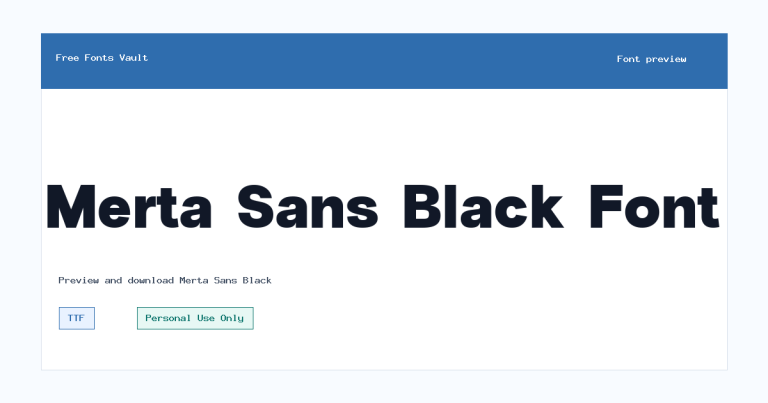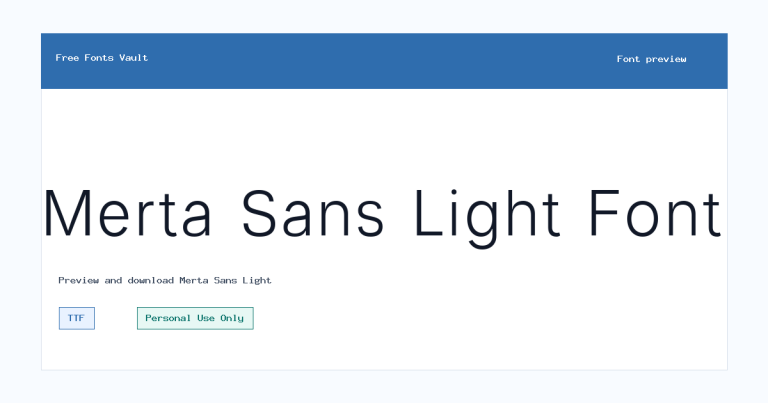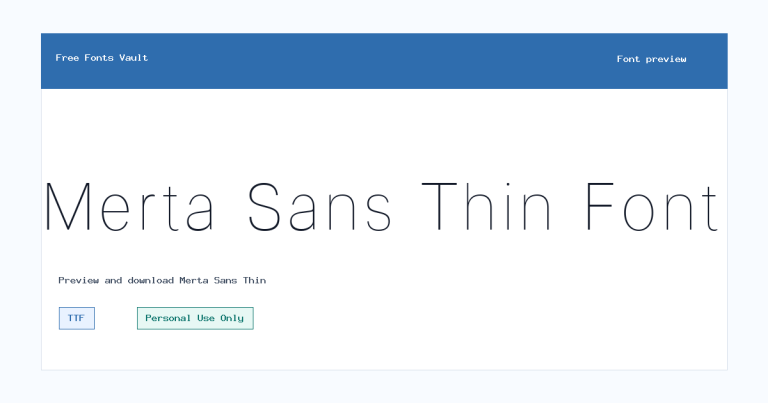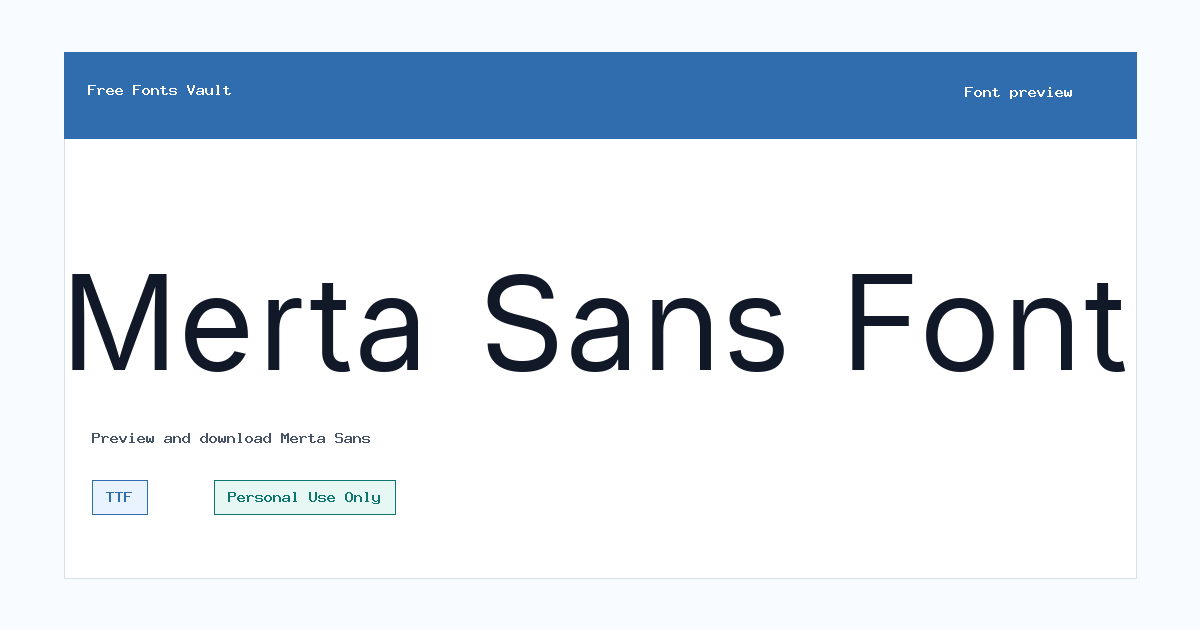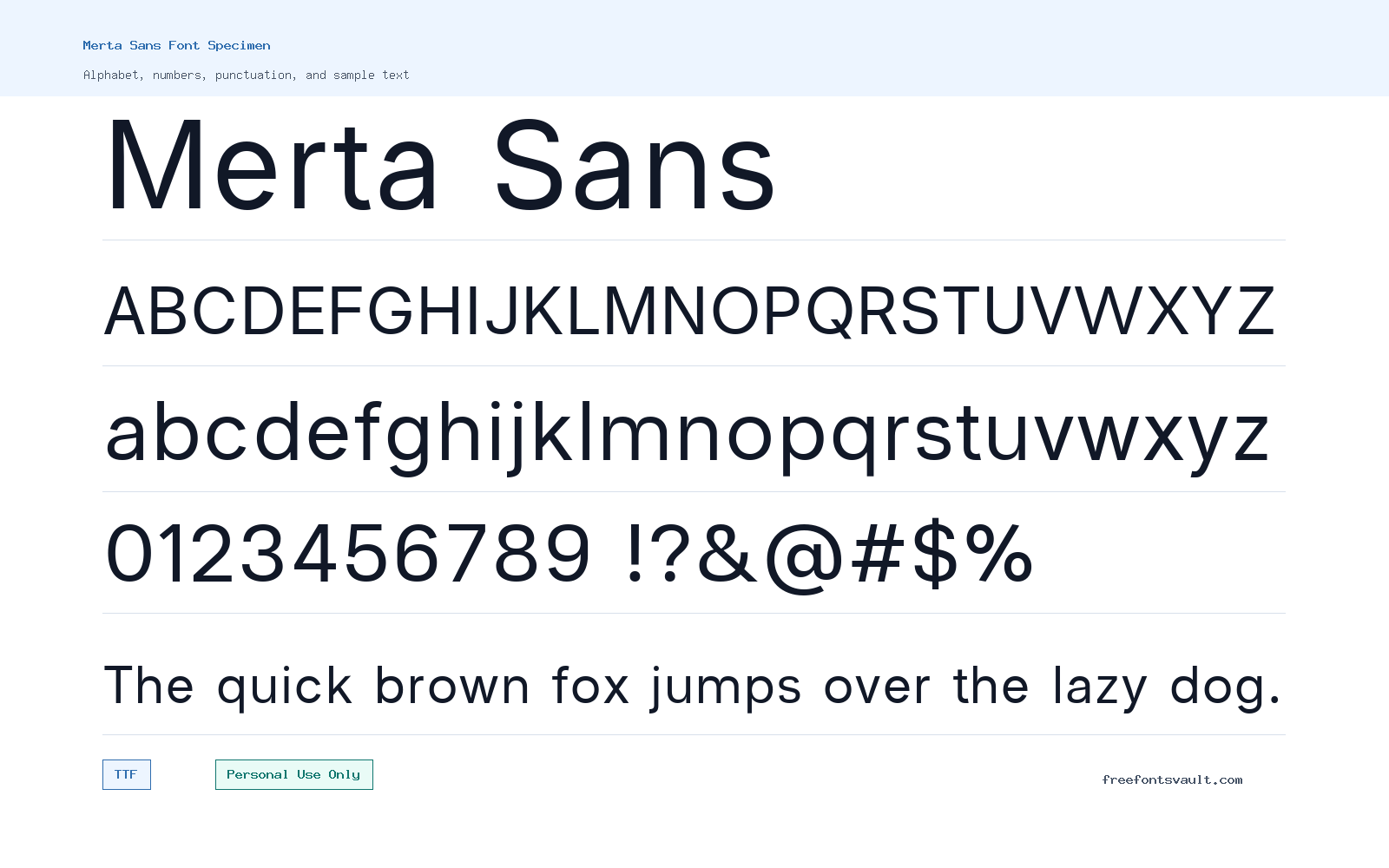
Merta Sans
- Designer Diki Pradipta Tri Atmojo
- Foundry Lettertype Studio Co.
Merta Sans is a sans serif font family for personal projects, with demo Regular and Bold TTF files for testing clean titles, branding drafts, posters, and layout mockups.
About Merta Sans
Merta Sans is a practical sans serif choice when you need a clear, modern-looking typeface for short text and visual layouts. The family name and license information identify it as a sans serif font, and the included demo styles cover regular-weight text and a stronger bold weight. That makes it useful for trying simple hierarchy: regular for supporting lines, bold for headings, names, labels, or call-to-action text. Because the files are marked as demo fonts, it is best to treat them as trial fonts for personal design exploration rather than finished commercial assets.
- Regular weight for simple text settings and Bold weight for stronger headings
- Useful for testing title hierarchy, logo drafts, posters, social graphics, and web layout mockups
- Personal logo concepts and name studies
- Poster titles and event mockups
- Social media graphics and quote cards
- Website hero section drafts
- Typography pairing tests with serif or handwritten accent fonts
- Clean labels, badges, and short display text
For the best result, start by previewing Merta Sans in the exact words you want to design. Try Regular for supporting copy and Bold for headlines or logo-style text. Keep longer paragraphs at comfortable sizes, and avoid relying only on the bold style for dense reading. For pairing, place Merta Sans with a restrained serif if you want contrast, or with a simple script or handwritten accent only for small decorative moments. Do not mix it with several other display fonts in the same layout, because that can make the design feel crowded. If you plan to use it in a web mockup, check how the TTF renders at different sizes and weights before committing to the final design system.
Who designed Merta Sans?
Merta Sans is credited to Diki Pradipta Tri Atmojo. Lettertype Studio Co. is listed as the foundry.
Is Merta Sans good for posters?
Yes, it is a reasonable font to test for poster headings, event titles, and short promotional layouts, especially using the Bold style for emphasis.
What should I pair with Merta Sans?
Try a readable serif for contrast or a quiet handwritten accent for small details. Keep the pairing simple so the layout stays clear.